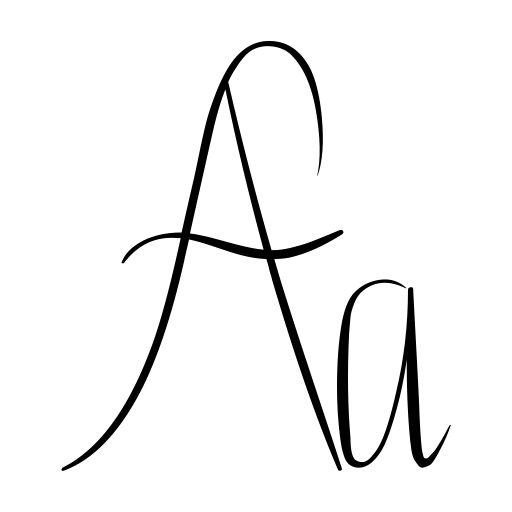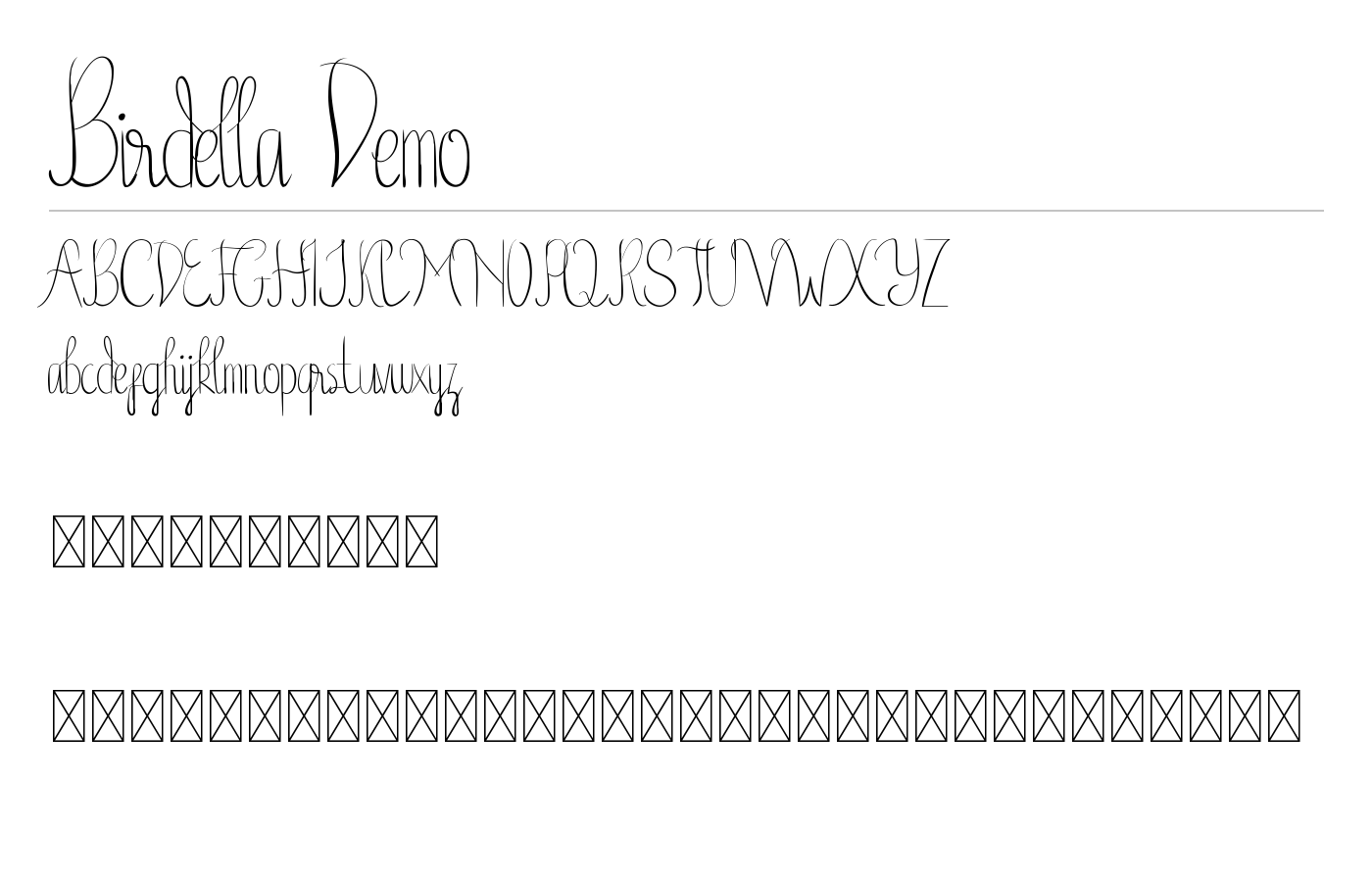
Birdella Demo is a delicate, slender script font with an elegant, hand-drawn feel, featuring tall, narrow letterforms and fine lines that create a graceful, airy appearance. Its playful yet sophisticated style makes it ideal for creative branding, invitations, and artistic projects where a light, whimsical touch is desired. This font works best in headlines or decorative settings, adding charm and personality without overwhelming the design.